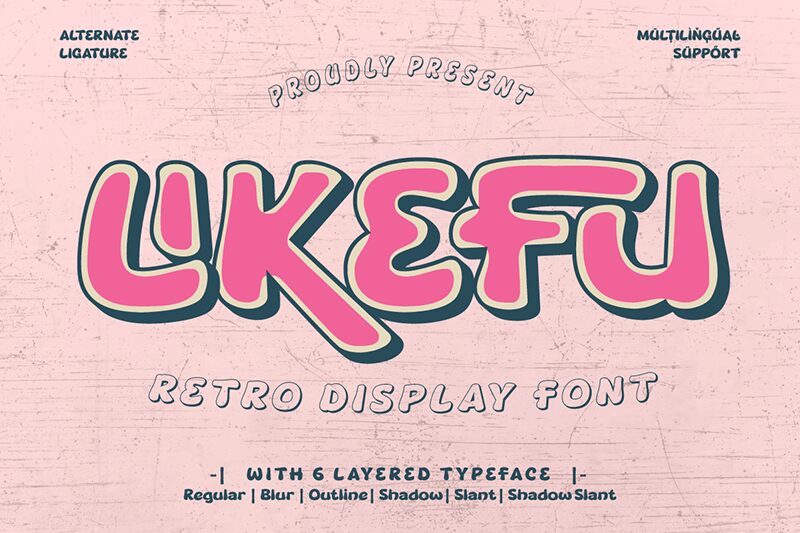
Likefu font by Twinletter is a bold cartoon display typeface characterized by its modern, chunky, and rounded edges. The font exudes a friendly style which attracts all eyes and engages different viewers in communicating the desired message. The casual appearance of this free font is another huge advantage that brings diversity to its potential use cases.
Some ideas on using Likefu include branding, advertising, website design, packaging design, flyers & posters, presentations & infographics design and editing, social media visual posts preparation and sharing along with book covers. Logo creation is another possibility that users can explore with this lovely cartoon typeface.